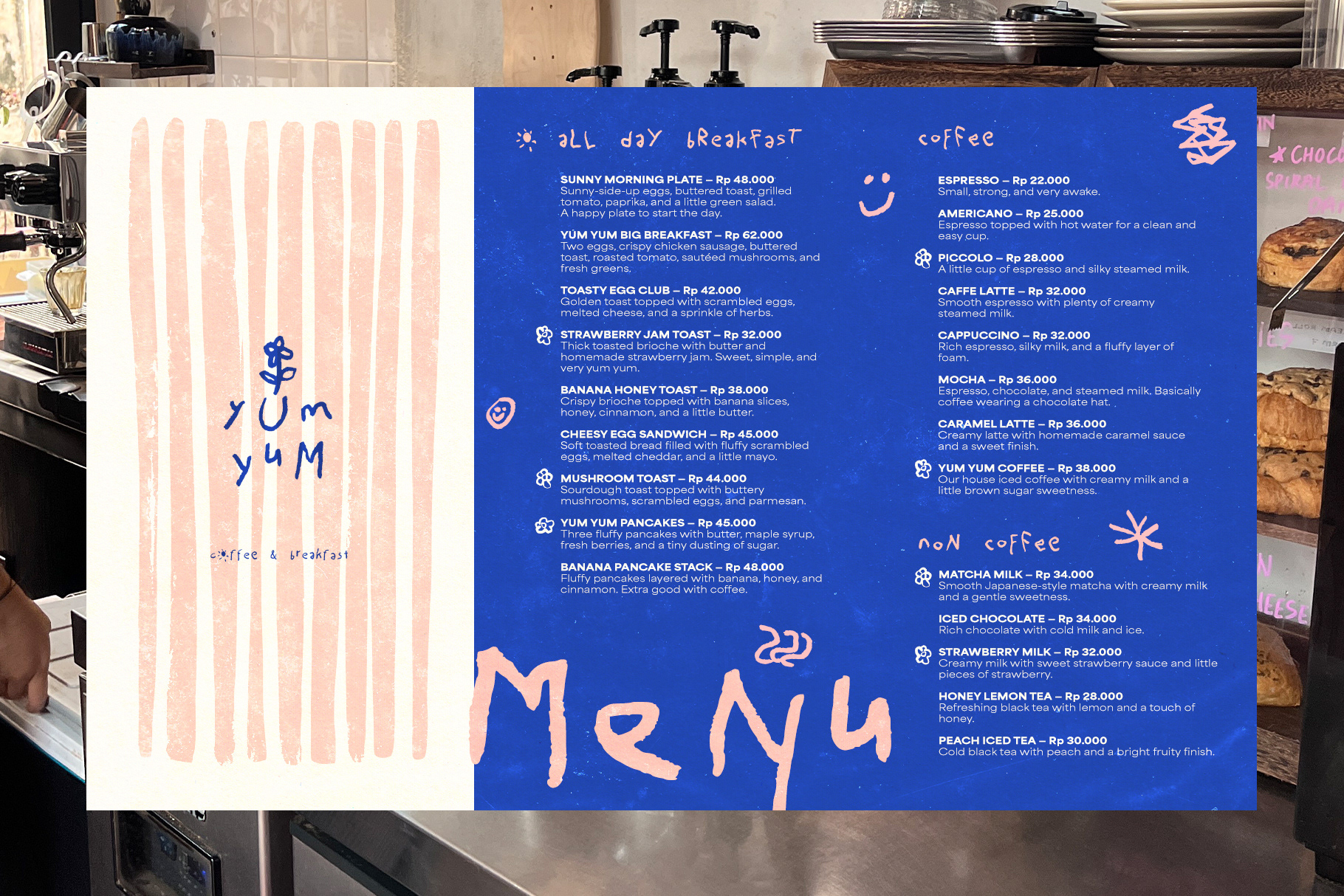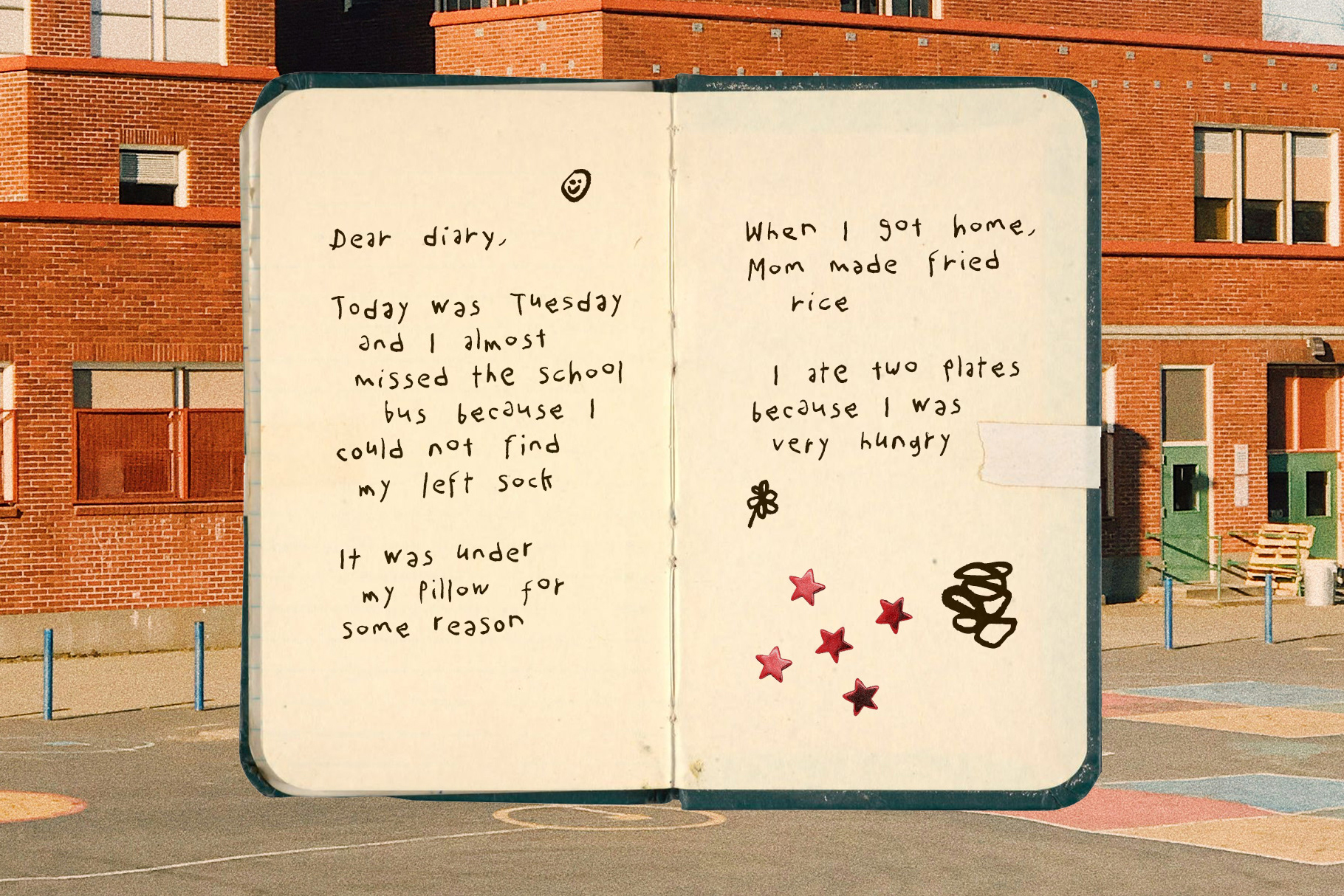
Twirlywaffegoo Font & Dingbat Set
Twirlywafflegoo is a messy, and wobbly handmade font and dingbat set inspired by the carefree way kids write, draw, and scribble. Packed with everything you need, including uppercase and lowercase letters, numbers, punctuation, 5 alternate sets, and a set of doodle & scribble dingbats. Multilingual support.​​​​​​​